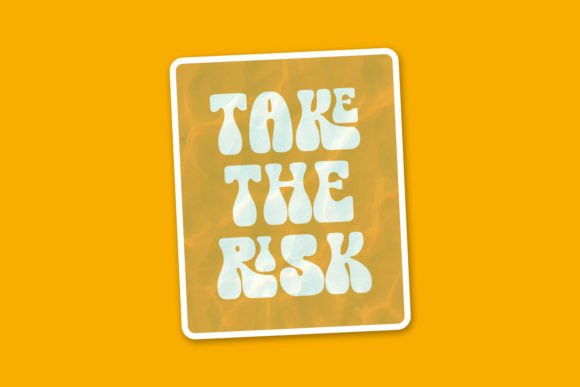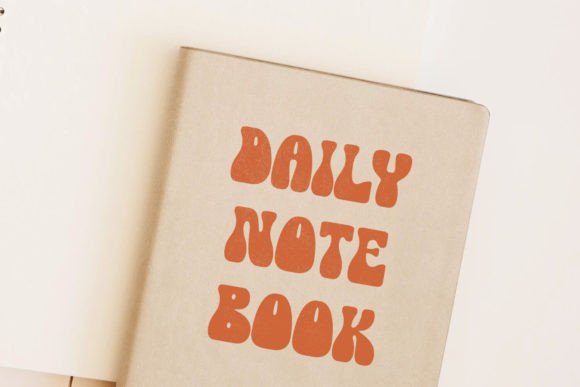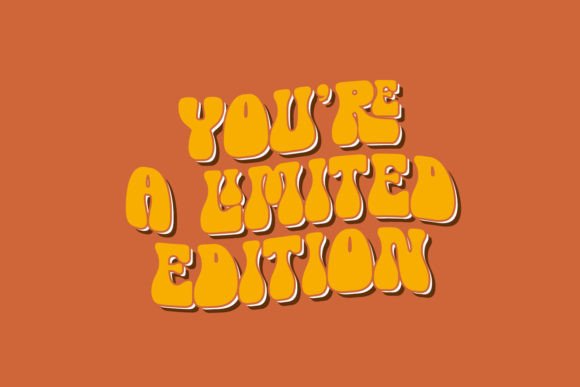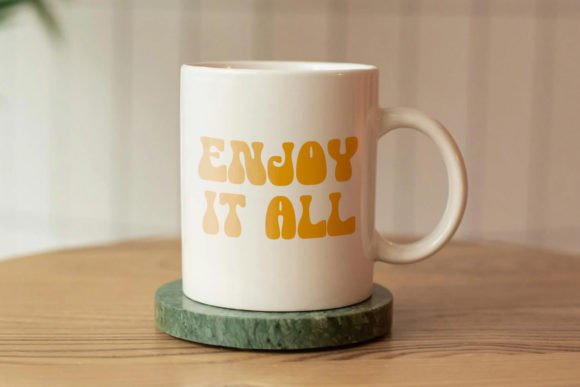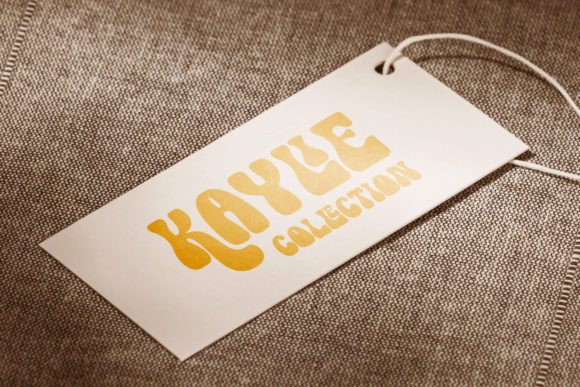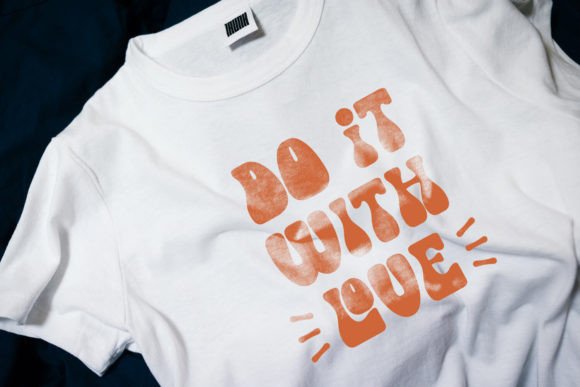
Unleashing the Magic of Retro Prince Font
Have you ever stumbled upon an old, dusty box of vintage photographs, only to discover a treasure trove of memories hidden within? As a designer, I’ve had my fair share of such moments, and each time, I’m reminded of the importance of incorporating high-quality design resources into our creative projects. Among these resources, the Retro Prince Font stands out for its unique charm and character.
This enchanting display font is a design treasure that takes us on a journey back to the vibrant aesthetics of the retro era. With its rounded shapes, uneven proportions, and playful style, Retro Prince Font adds a touch of quirkiness and spontaneity to any design. Whether you’re working on a personal project or a commercial design, this font is sure to elevate your creative project with its non-straight outlines and transparent background, making it a valuable asset for designers.
Key Features of Retro Prince Font
- Retro aesthetic: The Retro Prince Font features a unique blend of vintage and modern elements, making it perfect for creative projects that require a touch of nostalgia.
- High-quality design: This font is designed with precision and care, ensuring that it looks great at various sizes and resolutions, from small text to large headlines.
- Transparent background: The Retro Prince Font has a transparent background, making it easy to use on any design resource, from website backgrounds to social media graphics.
- Unique characteristics: The Retro Prince Font features a unique set of characters, including alternate glyphs and swashes, making it perfect for designers who want to add a personal touch to their creative projects.
Honest Review: Retro Prince Font
I recently had the chance to work with the Retro Prince Font, and I must say it’s been a game-changer for my creative projects. As a designer, I’m always on the lookout for high-quality fonts that can elevate my work to the next level. The Retro Prince Font definitely delivers.
- ✨ High-quality design: The font is well-crafted, with a unique retro vibe that’s perfect for vintage-inspired designs.
- ✨ Transparent background: The transparent background option allows for seamless integration with any design element.
- ⚠️ Limited font sizes: The font may not be suitable for large-scale text, as it can become difficult to read.
- ⚠️ Limited character set: The font may not include all the characters you need for your project, so be sure to check the character map before using it.
Overall, I’m impressed with the Retro Prince Font. It’s a great addition to any design resource library, and I’ll definitely be using it for future projects. Just be aware of the limitations and plan accordingly.
The Retro Prince Font is perfect for creating:
- Music festival and concert graphics
- Food and beverage branding
- Retro-themed posters and prints
For the best results, use the Retro Prince Font in conjunction with other design elements that match its aesthetic. Experiment with different font sizes, colors, and arrangements to create a unique and eye-catching design.